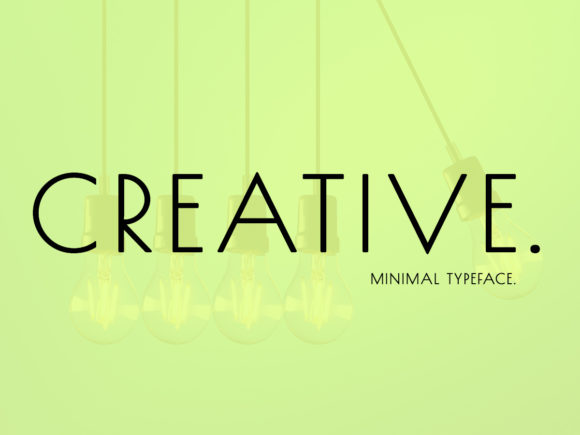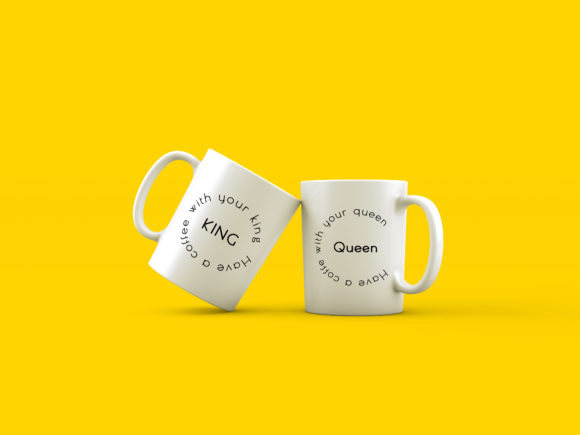
Introduction to Shylok Font
Shylok is a minimal and neat sans serif font.
Key Features of Shylok Font
Why Choose Shylok Font?
Shylok Font offers exceptional quality and versatility, making it a valuable addition to your design toolkit. Whether you’re creating for personal projects or commercial use, Shylok Font delivers professional results.